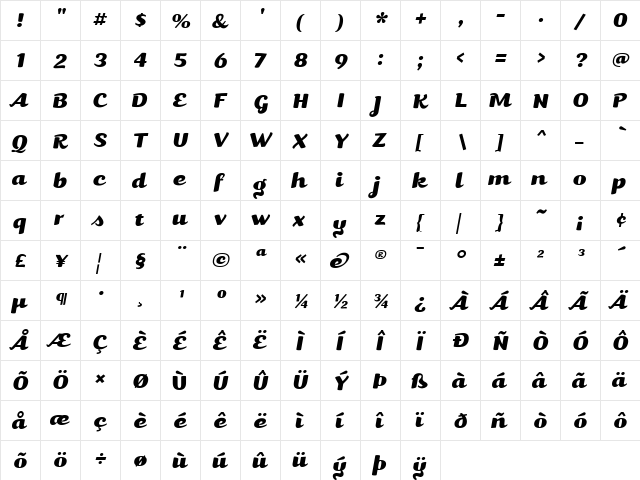
Kari Pro Italic
| Foundry | Neil Summerour and Positype |
| Designer | Neil Summerour |
Design Context for Kari Pro Typeface
Kari Pro offers clean, dependable letterforms without strong stylistic allegiance, making it a practical choice for designers who need flexibility. Its italic angle brings a sense of urgency and motion to the letterforms.
Pro Tip: Try Kari Pro for annotation and caption copy alongside an upright companion — the contrast in angle creates a dynamic but ordered typographic system.